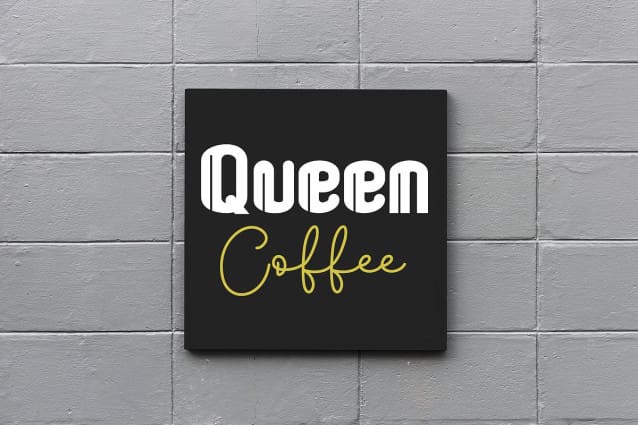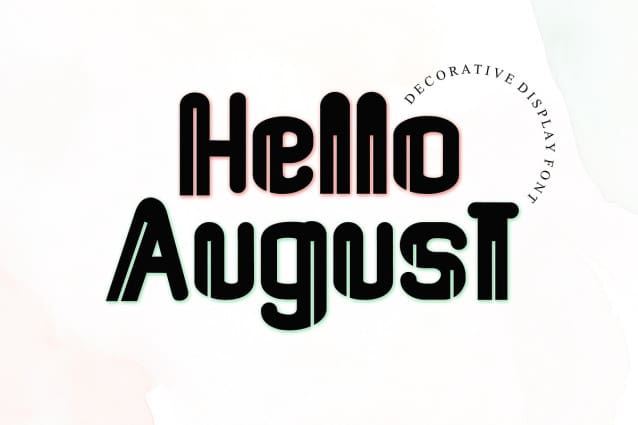
Hello August Font
Hello August Font is a cool and interestingly designed display font. It will elevate a wide range of crafting ideas, from cards, to branding, labels and much more.